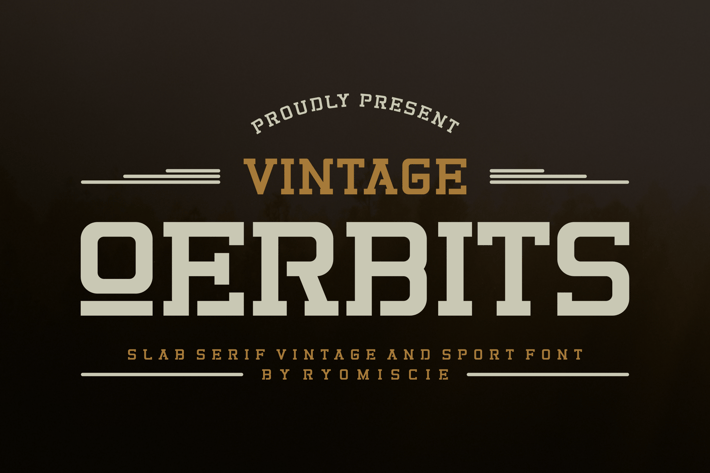
Vintage Qerbits - SlabSerif Vintage And Sport Font
Introducing our new product Vintage Qerbits - Slab Serif Vintage And Sport Font
Vintage Qerbits - Modern Font is a bold and authentic display font. The font is suitable for any branding project like logo,
t-shirt printing, esport, and many more. outstanding in a wide range of contexts.
Vintage Qerbits Uppercase